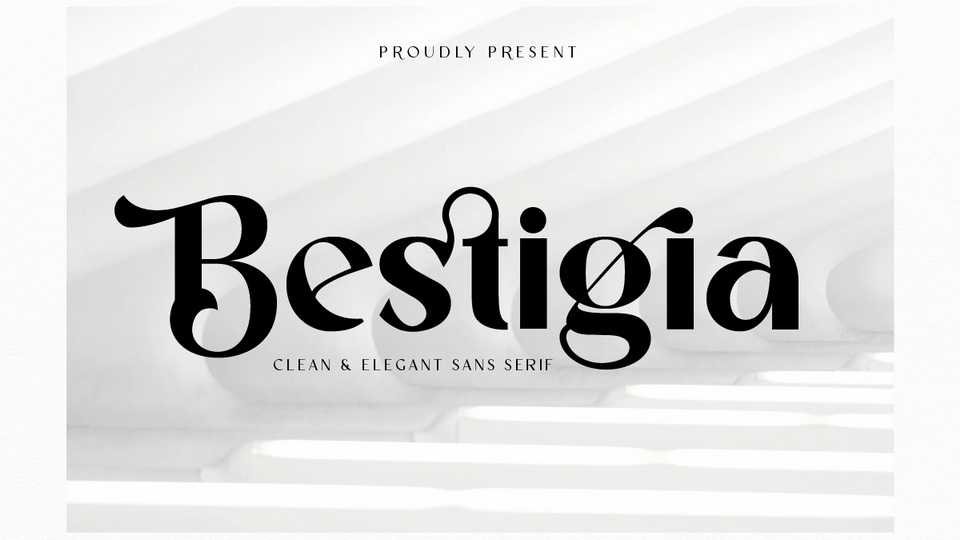
Download Bestigia font, an elegant and chic sans serif typeface. Bestigia font is impressive and features an clean and modern, professionally shaped look, and as a result, it will easily match a variety of creations.